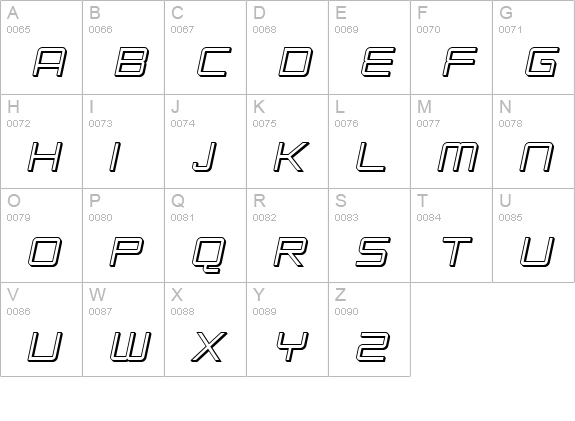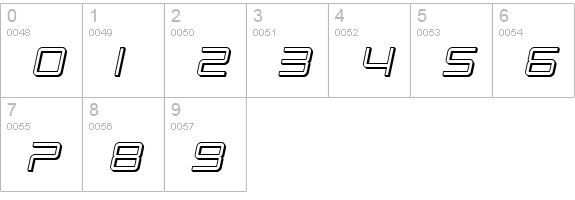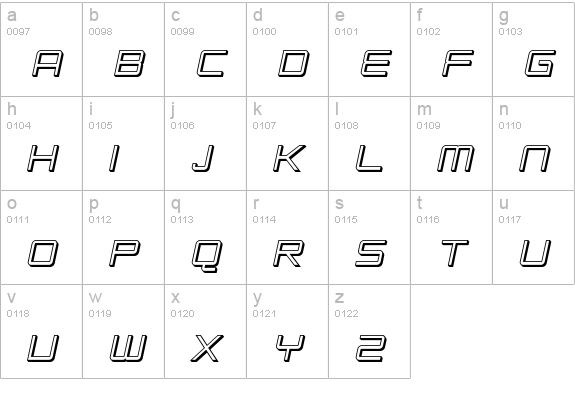
SF Chromium 24 SC Oblique Font Details
SF Chromium 24 SC Oblique is a distinctive, italic variant in the SF typeface family \xE2\x80\x94 well suited to design and typography projects.
SF Chromium 24 SC Oblique is a captivating and sleek font that will instantly elevate any design project. With its modern and futuristic aesthetic, this font is perfect for adding a touch of sophistication to your work. The oblique slant adds a dynamic element, giving your text a sense of movement and energy. The SF Chromium 24 SC Oblique font is not only visually stunning, but it is also versatile. It can be used for various purposes, such as headlines, logos, posters, and more. Its clean and crisp lines make it incredibly legible, ensuring that your message gets across effectively. One of the best things about SF Chromium 24 SC Oblique is that it is freely available to download at FontsMarket.com. This means that you can add this incredible font to your collection without any cost. Whether you are a professional designer or a hobbyist, having access to high-quality fonts like SF Chromium 24 SC Oblique can greatly enhance your creative projects. So, if you are looking for a font that combines elegance, modernity, and versatility, look no further than SF Chromium 24 SC Oblique. Download it for free at FontsMarket.com and start creating stunning designs that will captivate and impress.